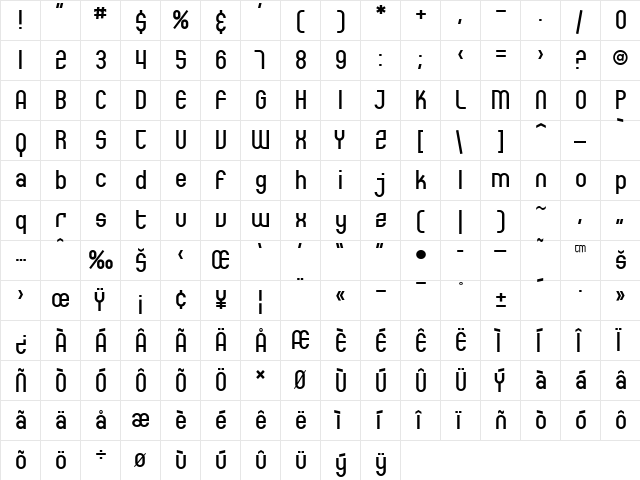
SF Eccentric Opus Regular
Design Context for SF Eccentric Opus Typeface
SF Eccentric Opus takes a measured approach to typography — its balanced proportions and neutral character make it a reliable workhorse for both digital and print work.